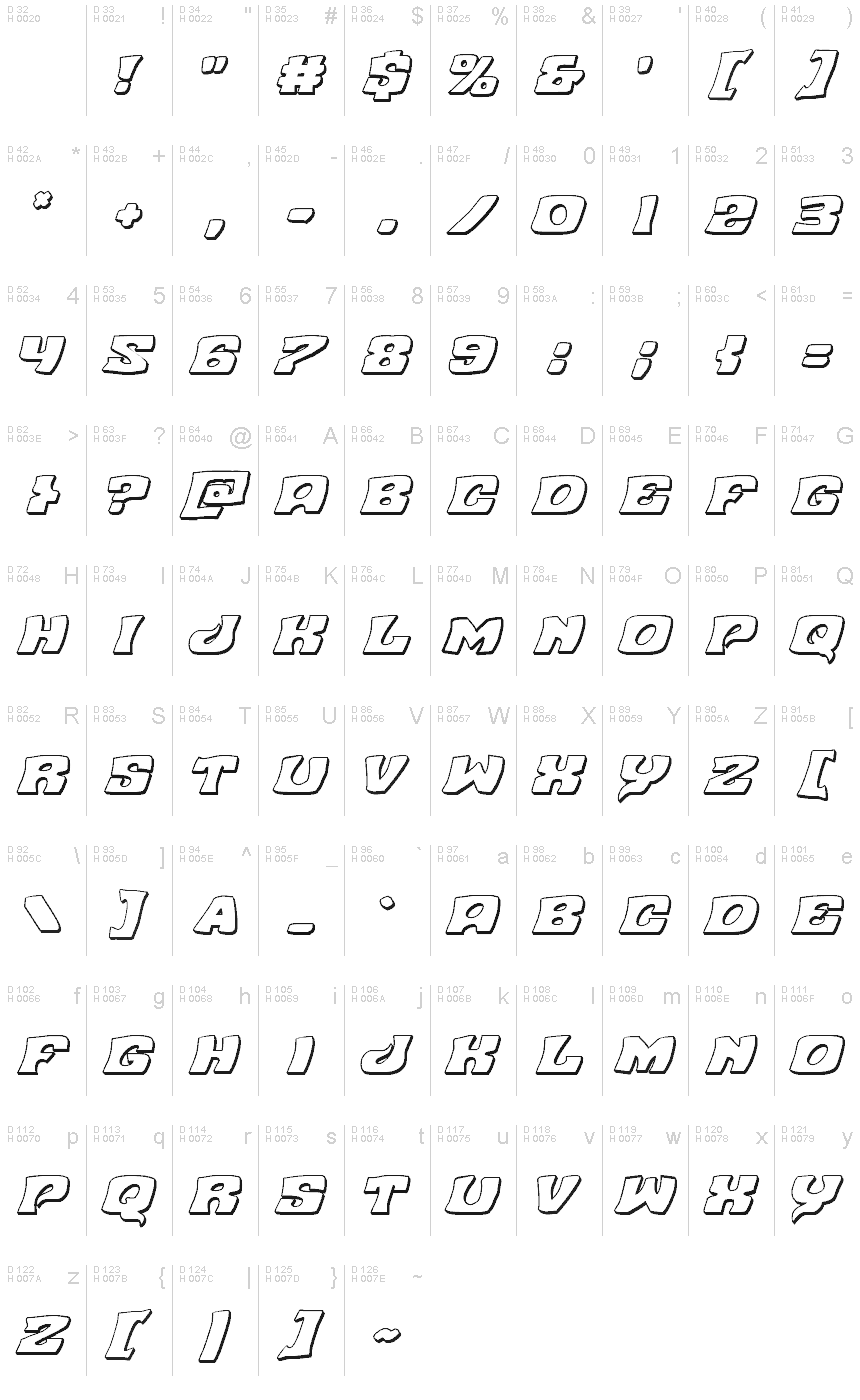
Nuevo Passion 3D Italic
Nuevo Passion 3D Italic is a bold, groovy display font that exudes a captivating sense of depth and dimension. Designed by Daniel Zadorozny, this expanded typeface seamlessly blends a retro-futuristic aesthetic with a modern sensibility. The 3D effect adds a striking visual impact, making it an ideal choice for attention-grabbing headlines, logos, and other design elements that demand a strong, distinctive presence.
Its versatility allows it to shine in a wide range of applications, from editorial layouts and packaging to event branding and digital interfaces, effortlessly elevating the visual appeal of any project.